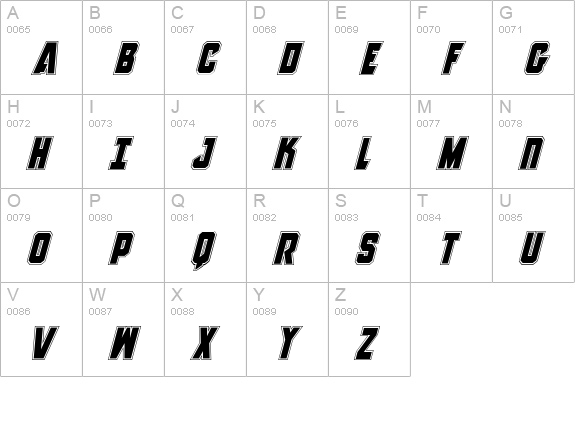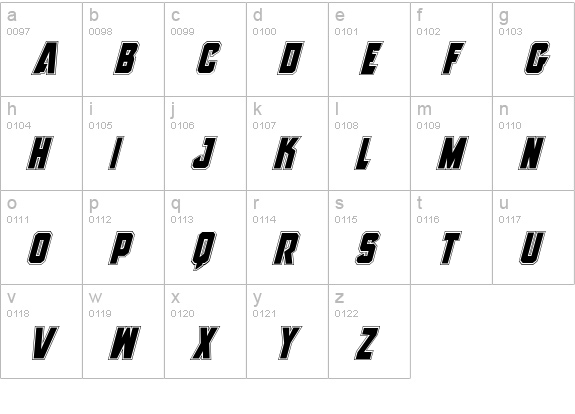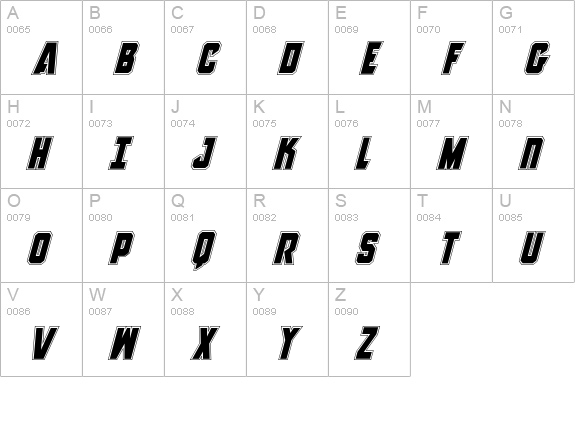
Anitlles Academy Italic is a distinctive, italic variant in the Anitlles typeface family \xE2\x80\x94 well suited to design and typography projects.
Antilles Academy Italic font embodies elegance and sophistication with its sleek, slanted design. Perfect for adding a touch of refinement to any project, this font exudes a sense of timeless class and style. The italicized characters lend a sense of movement and flair to your text, making it stand out in a sea of ordinary fonts. Whether you're creating invitations, posters, or branding materials, Antilles Academy Italic font will elevate your design to new heights. The best part? Antilles Academy Italic font is available for free download at FontsMarket.com. Now you can enjoy the beauty and versatility of this stunning font without breaking the bank. Don't miss out on this incredible opportunity to enhance your projects with the exquisite charm of Antilles Academy Italic font. Download it today and let your creativity soar!